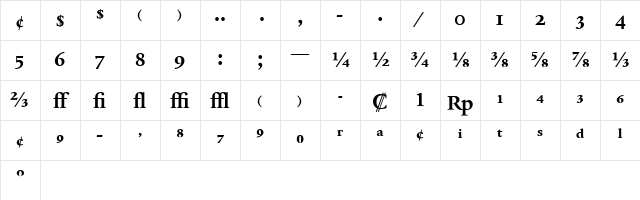
Complete Dante Bold glyph index. Displaying only characters natively supported by Dante Bold font.
Dante is a composed and adaptable typeface that performs quietly and consistently across a wide range of design contexts. Its bold stroke weight gives it real presence on the page.
Who designed the Dante Bold font?